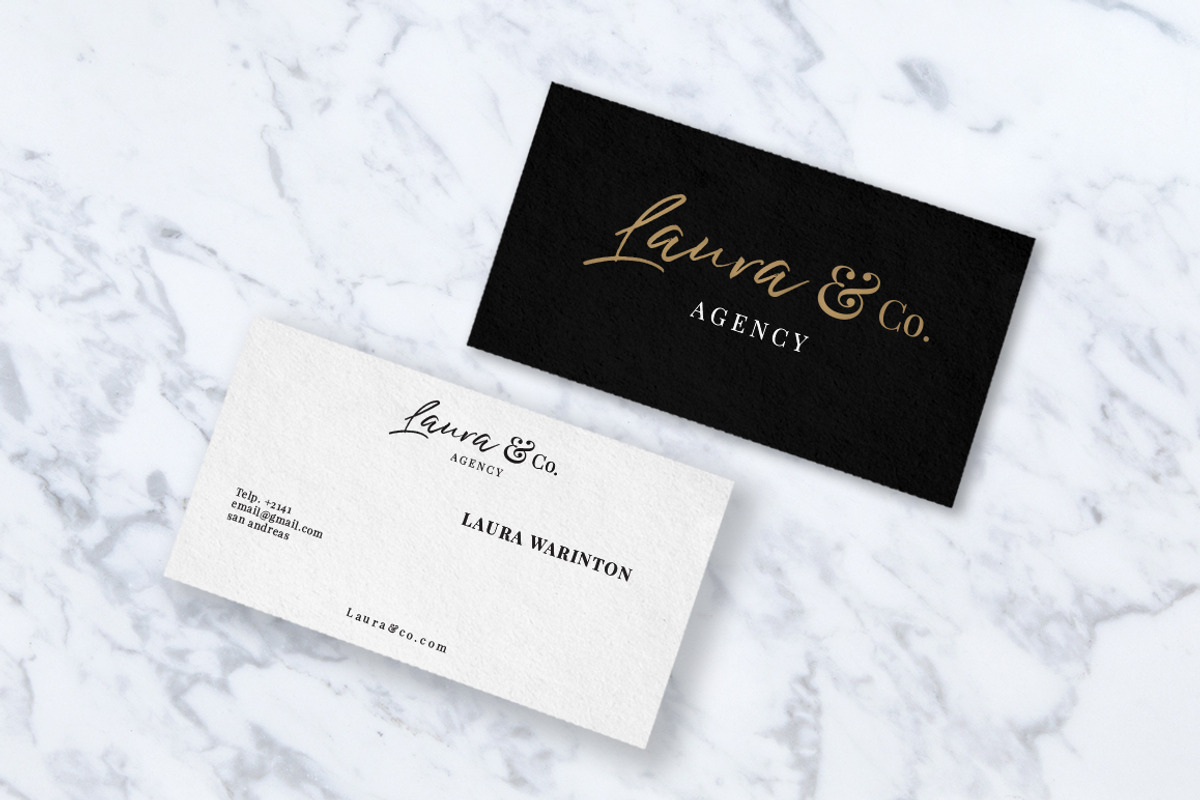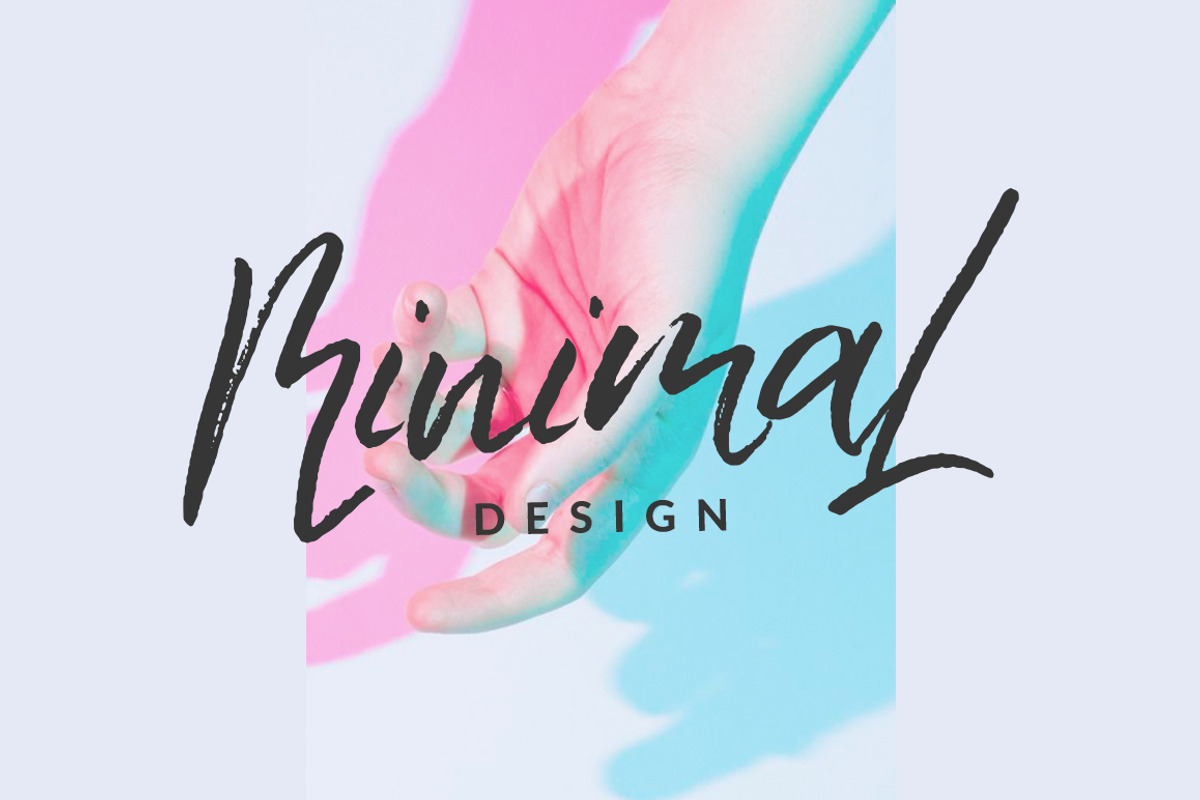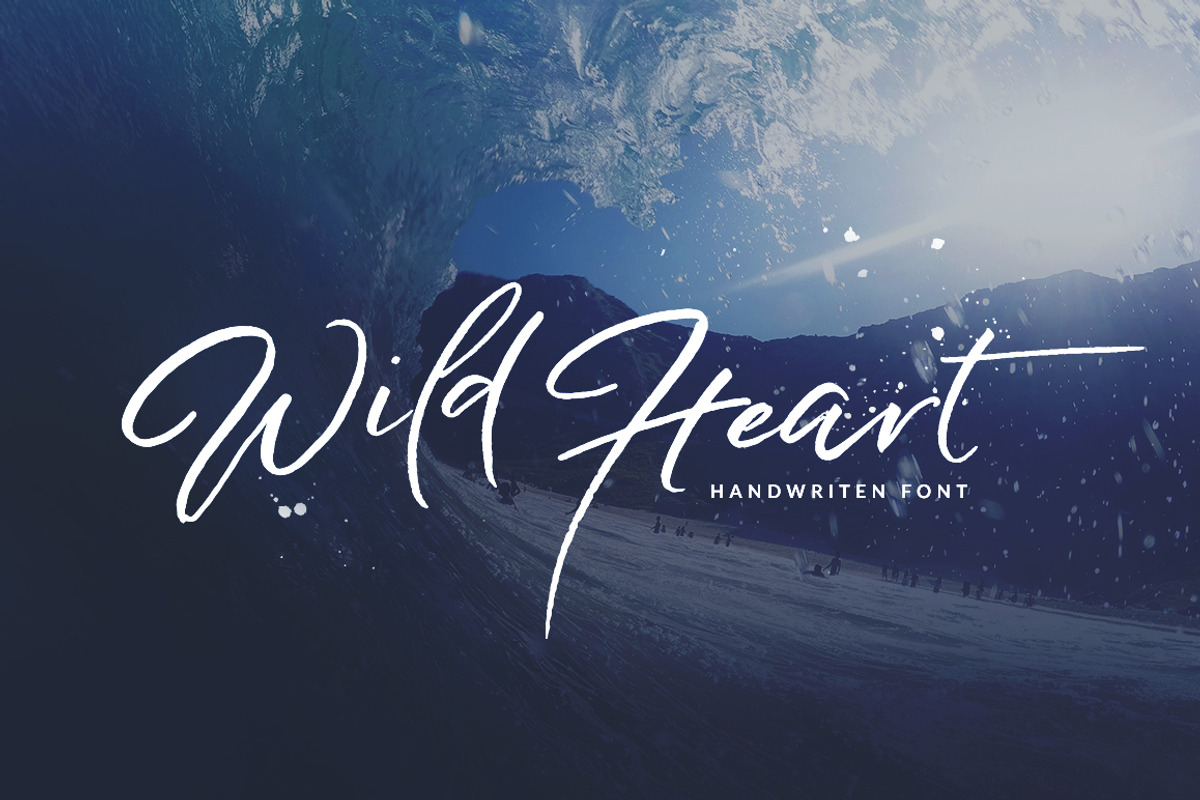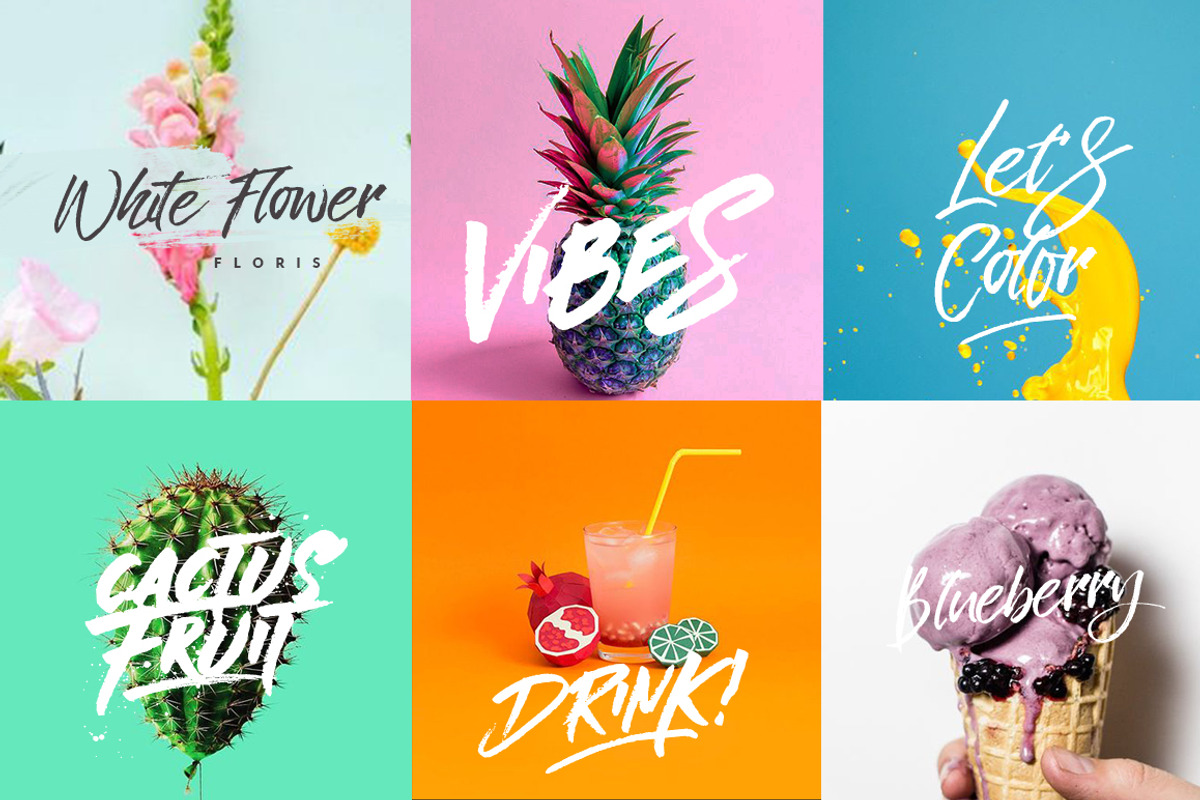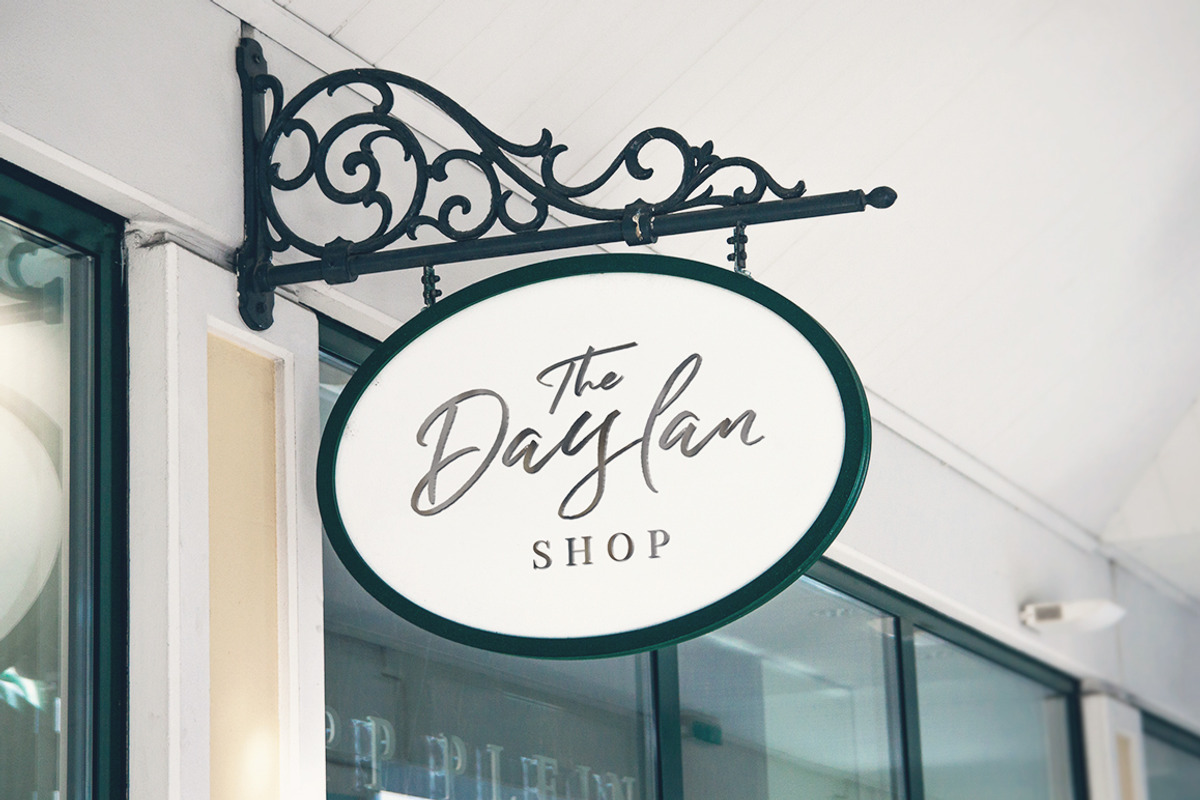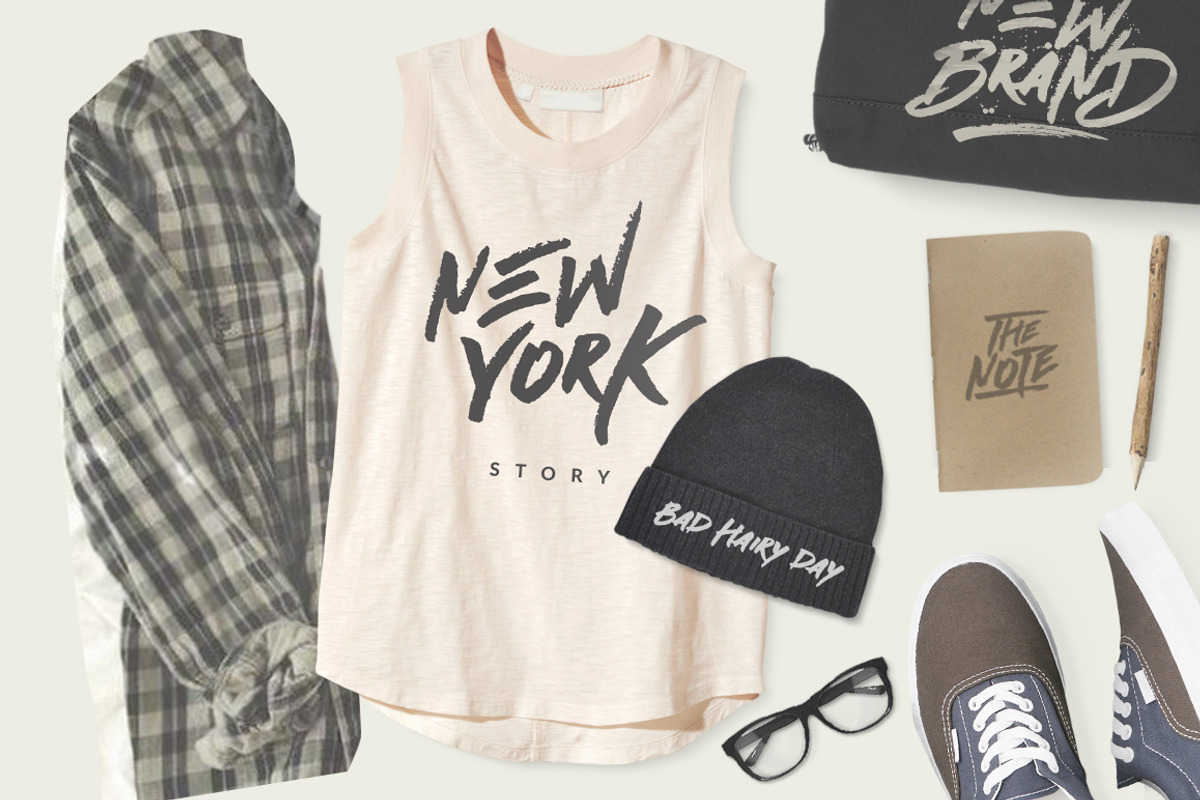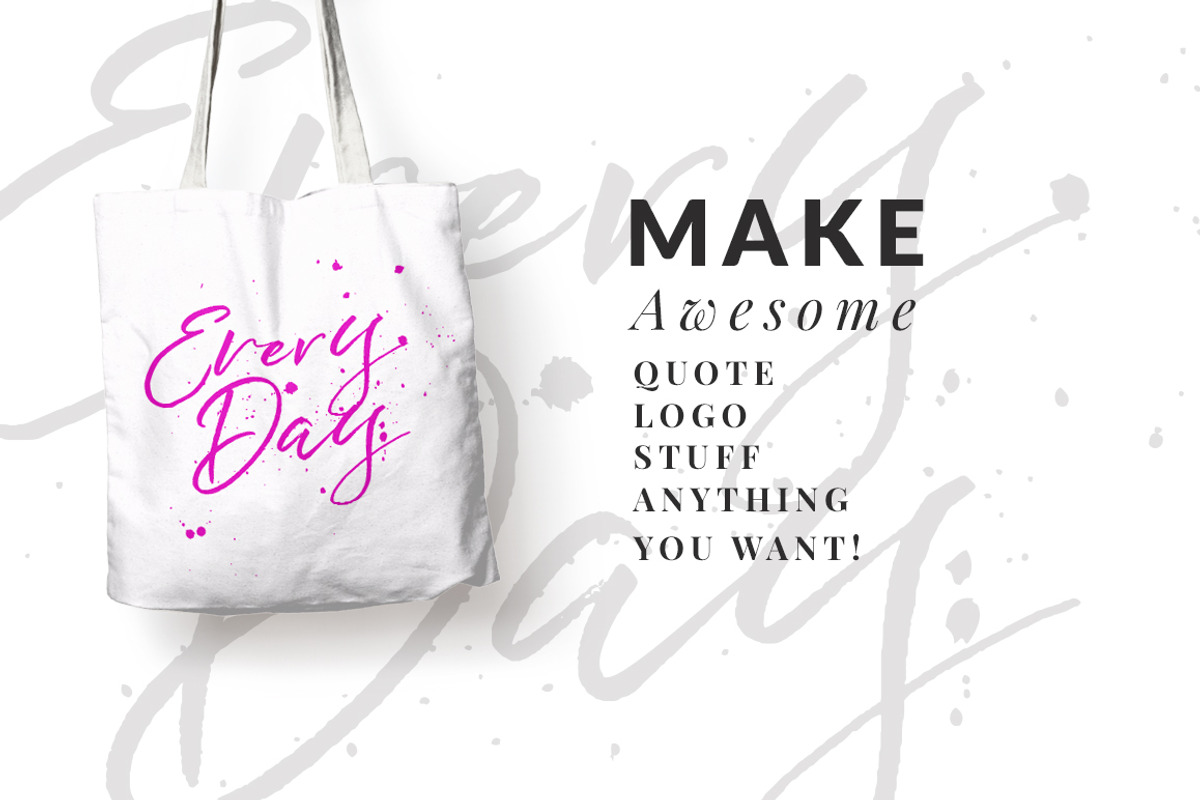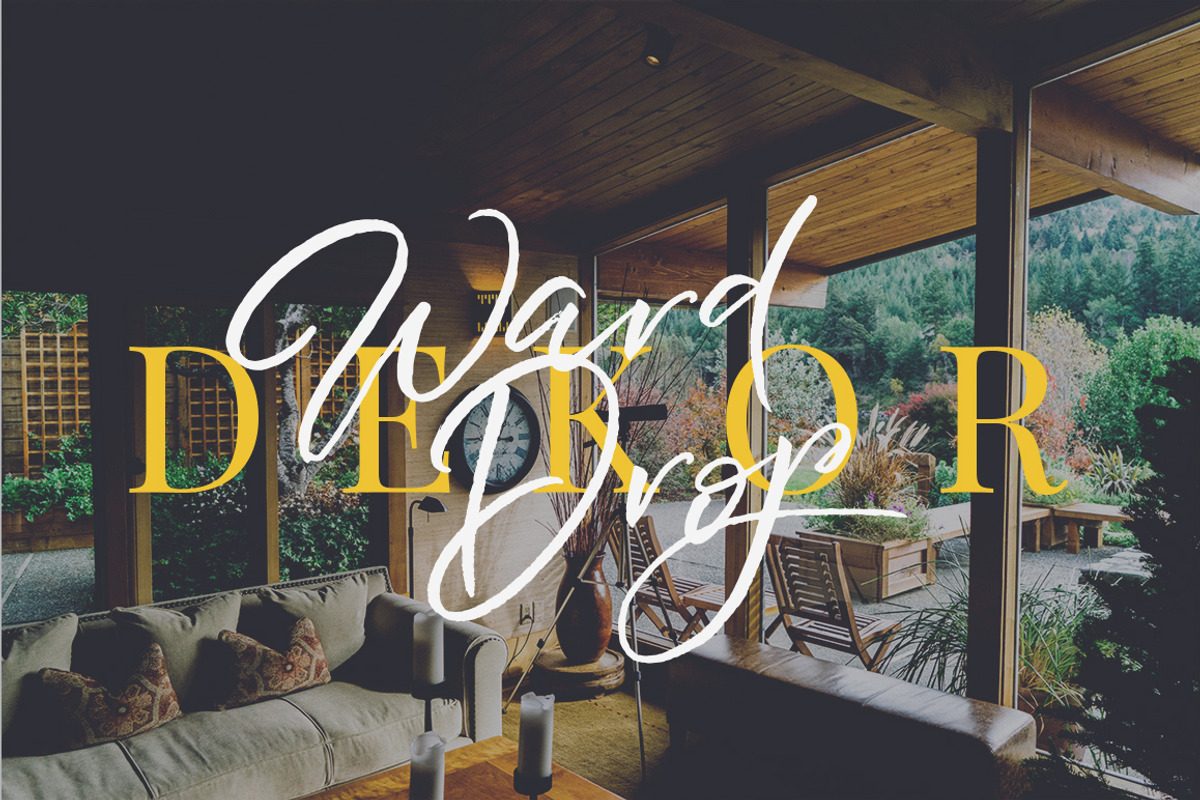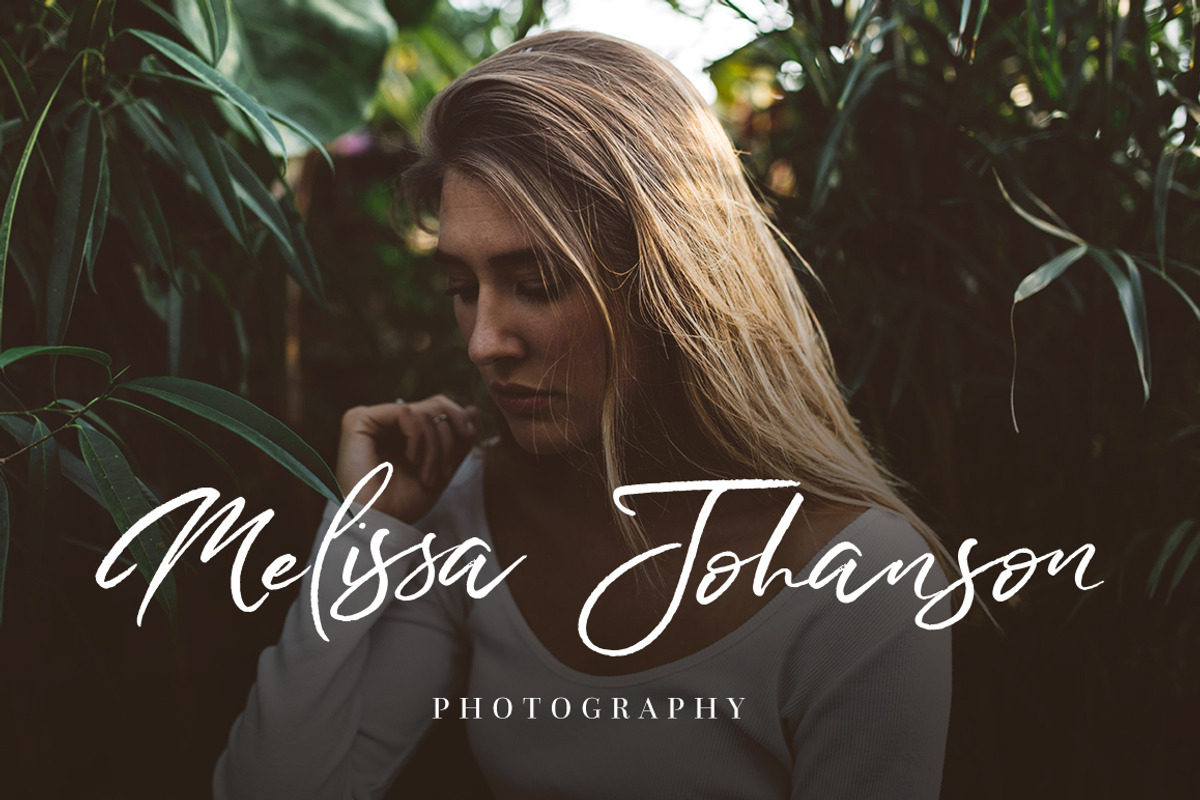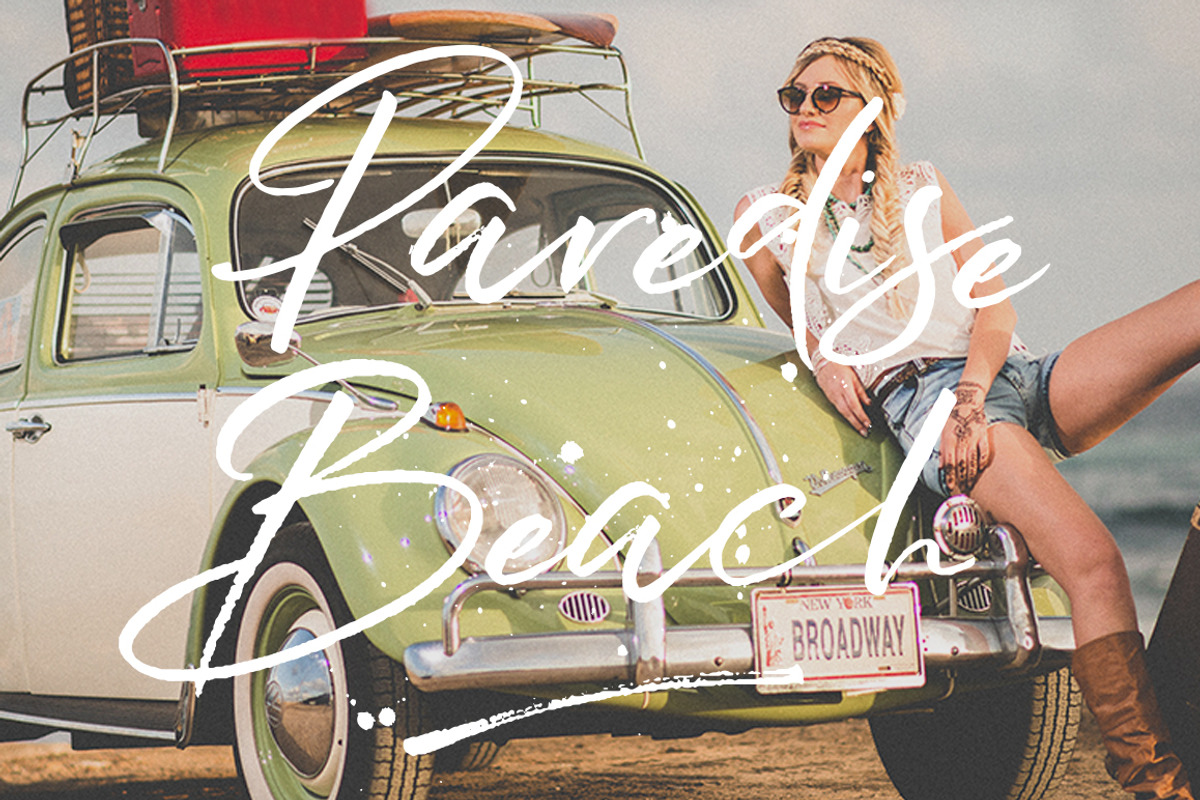
Introducing Wild Heart handwriting brush with some combination of style Street and LifeStyle. Ready used with awesome character!
- Wild Heart script : A Rough Dry Brush Script , with a casual character, but fancy attitude. Complete with Latin Pro and 394 Glyphs and more Ligature
- Wild Heart All Caps : A Rough Dry Brush All Caps with 100 Glyphs.
- Stylistic Set
- Latin Pro Support Character